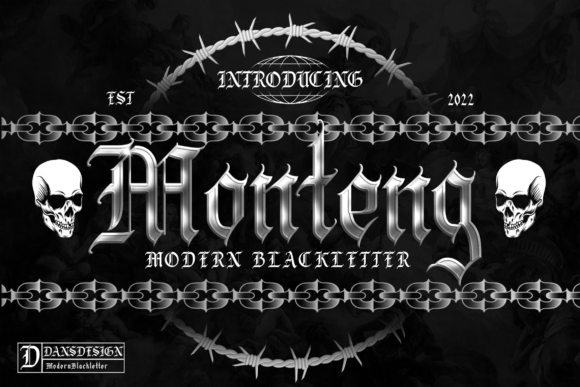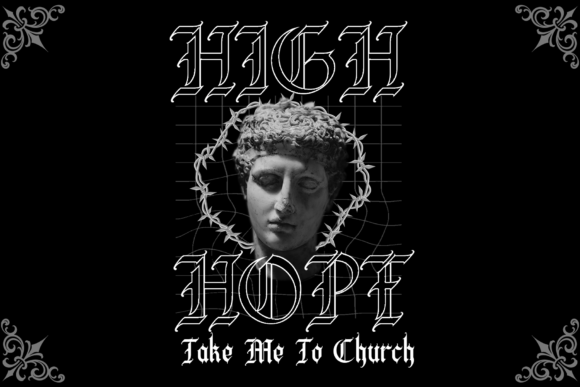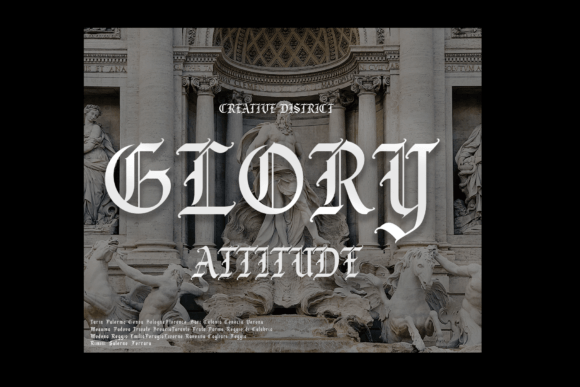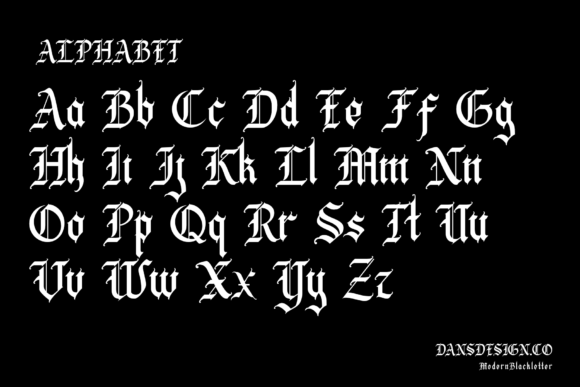
The wait is over! The incredible Monteng Font is now available for your design toolkit. Monteng is a distinct, highly detailed, and chic blackletter font. It would make a great choice for exquisite retro-urban designs, tattoo business branding, logos, vintage designs, and more.
Monteng’s intricate detail makes it ideal for headlines, short text blocks in branding materials, and logos where its strong personality can make a statement. It excels in projects emphasizing vintage aesthetics, luxury goods, or the rebellious spirit of urban culture. Avoid using it for body text or lengthy paragraphs; its high level of detail can be overwhelming at smaller sizes and hinder readability.
Its bold, chic personality pairs well with clean sans-serif fonts like Futura or Helvetica for a balanced contrast. For a more vintage feel, consider pairing it with a classic serif such as Garamond or Didot. A touch of elegance can be achieved by using it alongside a delicate script font, though ensuring sufficient contrast in weight is crucial.
Monteng’s overall mood is confident and sophisticated, lending itself well to projects that require a strong visual identity. Brands aiming for a refined yet edgy image will find it particularly suitable.